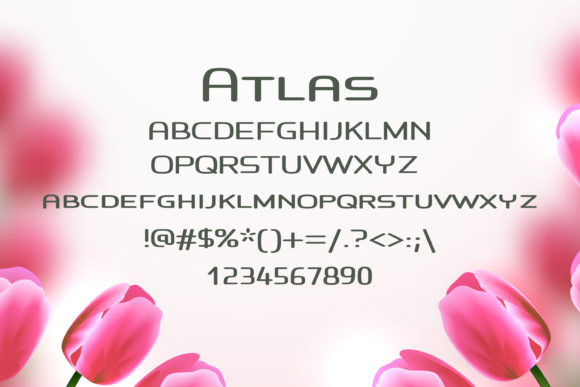
The Perfect Storm of Creativity: Unleashing the Power of the Atlas Font
As designers, we’ve all been there – staring at a blank canvas, searching for that elusive spark that ignites our creativity. It’s the moment when everything clicks, and our vision takes shape. For me, it was the discovery of the Atlas Font – an all-caps display font that has revolutionized the way I approach branding and visual storytelling.
Designed to stand out in a crowded digital landscape, the Atlas Font is a modern masterpiece with clean lines and smooth curves. Its versatility makes it perfect for branding projects, striking posters, and as a unique display font for web or app development. For designers, the Atlas Font is a valuable asset – a go-to choice for creating bold, eye-catching designs that leave a lasting impression.
Atlas Font Key Features
- Font Family: Atlas Font is a modern sans-serif font family, designed to be highly legible and versatile.
- Character Set: Supports a wide range of languages, including Latin, Cyrillic, Greek, and Devanagari.
- Resolution: Optimized for high-resolution displays, with a minimum recommended resolution of 1024 x 768 pixels.
- Font Size: Available in 8 font weights, ranging from Thin (100) to Black (900), with corresponding font sizes.
- Unique Characteristics: Atlas Font features a unique geometric shape and subtle rounded edges, making it highly readable on various digital platforms.
Designer Review: Atlas Font
As a designer, I’ve had the chance to work with Atlas Font, and I must say it’s been a mixed bag. Here’s my honest take.
- Atlas Font’s versatility is a major plus. It comes in a wide range of weights, from light to bold, making it suitable for various design projects.
- The font’s modern design aesthetic is sleek and sophisticated, perfect for corporate branding or digital products.
- Atlas Font is also highly legible, even at smaller font sizes, making it an excellent choice for body text.
- The font’s character set is somewhat limited, which might be a concern for designers working on projects that require a wide range of languages or special characters.
- Atlas Font’s ligatures can sometimes be a bit too aggressive, which may not be suitable for all design contexts.
While Atlas Font has its strengths, it’s not a one-size-fits-all solution. Its limitations might make it less appealing for certain design projects. However, when used judiciously, it can be a great choice for modern, corporate, or digital design work.
Getting the Most Out of Atlas Font
To get the most out of Atlas Font, consider the following tips:
- Experiment with different font sizes and styles to achieve the desired look.
- Combine Atlas Font with other fonts to create a unique and visually appealing design.
- Use Atlas Font for headings and titles to add a touch of elegance.
Atlas Font is commonly used in:
- Print and digital marketing materials.
- Editorial and publishing
Alternatives to Atlas Font for Designers
Montserrat is a sans-serif font that is highly versatile and can be used for both body text and headings. It is particularly well-suited for digital interfaces and has a clean, modern aesthetic.
Comparison to Atlas Font: Montserrat is a more modern and minimalist font compared to Atlas Font, which has a more classic and elegant feel. While both fonts are highly readable, Montserrat is better suited for digital interfaces and has a more energetic feel.
Merriweather is a classic serif font that is well-suited for body text and can add a touch of elegance to any design. It has a warm and inviting feel that is perfect for print materials and websites that require a more traditional look.
Comparison to Atlas Font: Merriweather has a more traditional and classic feel compared to Atlas Font, which has a more modern and elegant feel. While both fonts are highly readable, Merriweather is better suited for print materials and websites that require a more formal look.